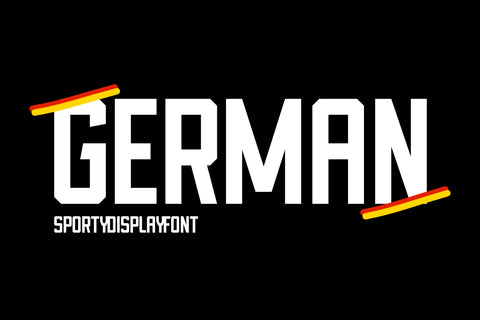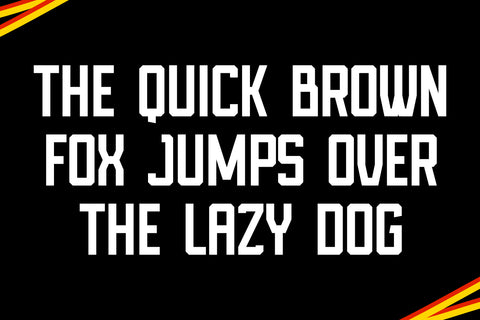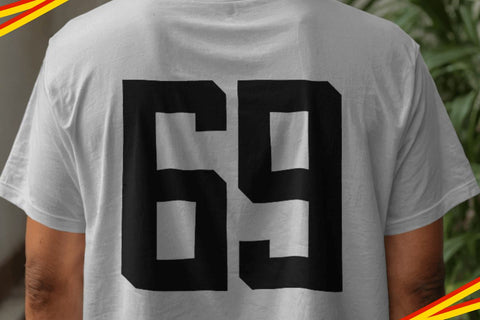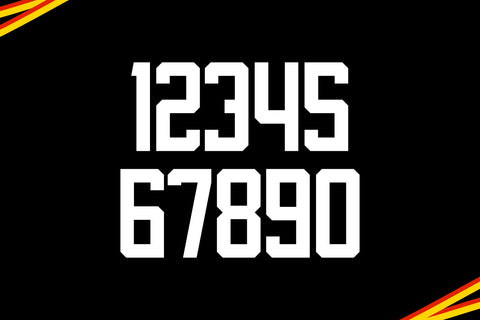
German - Sport Font
German is a sporty jersey sans serif font. font inspired by typographic designs on football jerseys. This font is suitable for creative needs such as back numbers, jerseys, plates, banners, stickers, decals, t-shirts, Cricut, crafts and other creative ideas. Apart from that, this font is also perfect for sports branding. And of course it is also suitable for social media and advertising such as YouTube thumbnails, TikTok, Instagram and other media.